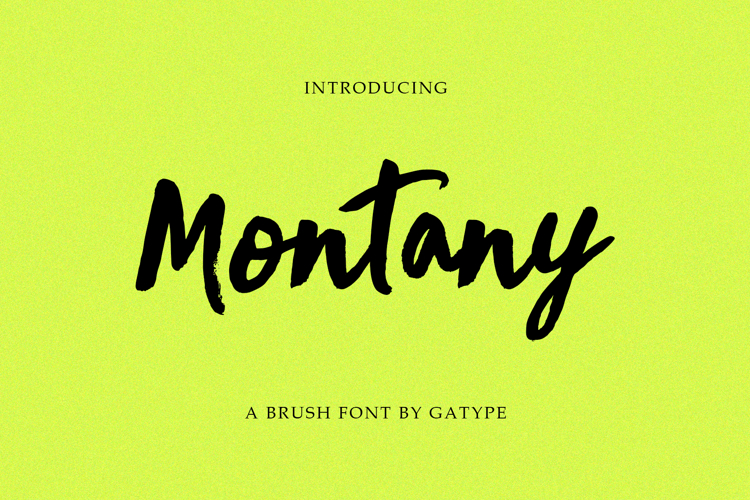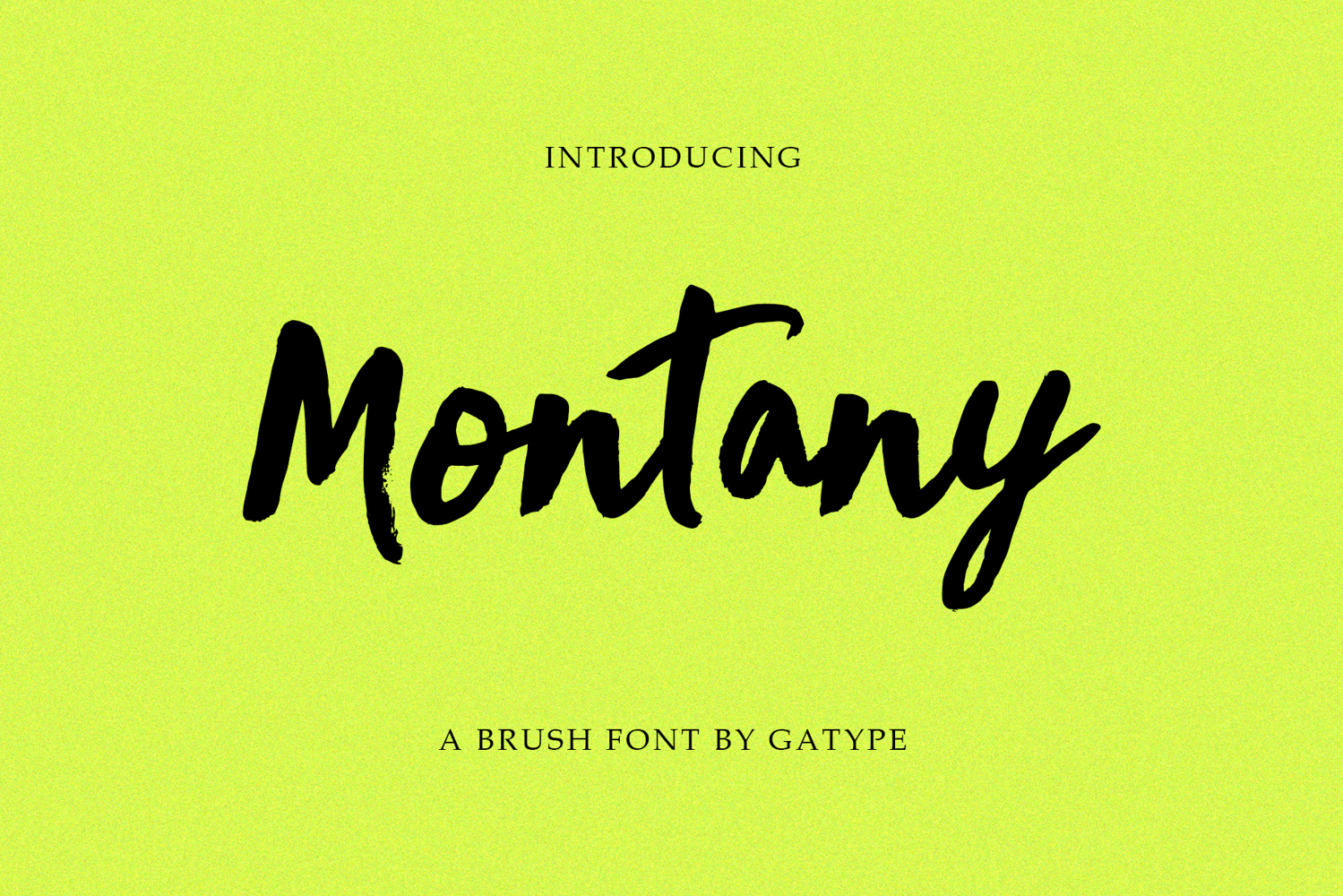
Montany comes in a slightly more slanted version of the Brush Font that showcases a slightly different personality.
Montay is designed to resemble the organic, slightly textured look of ballpoint pen ink, capturing the unique imperfections that make handwritten notes. Montany works seamlessly together or individually, providing flexibility for creative projects where a handmade look is essential. Meet the new Montany Brush Font. A casual yet sophisticated handwriting font.
Author Montany features a full suite of uppercase and lowercase letters, numbers, punctuation, and OpenType features like beautiful ligatures and swashes.